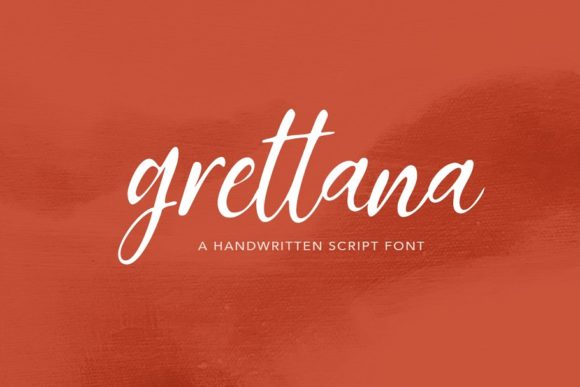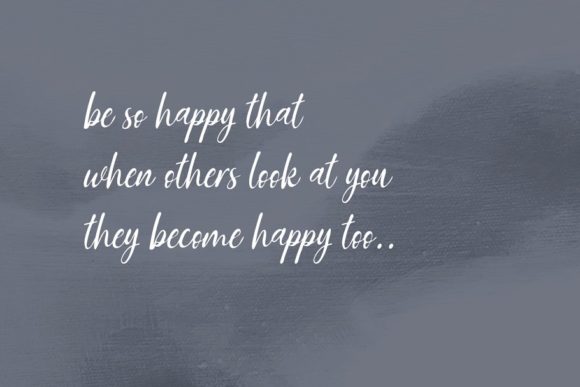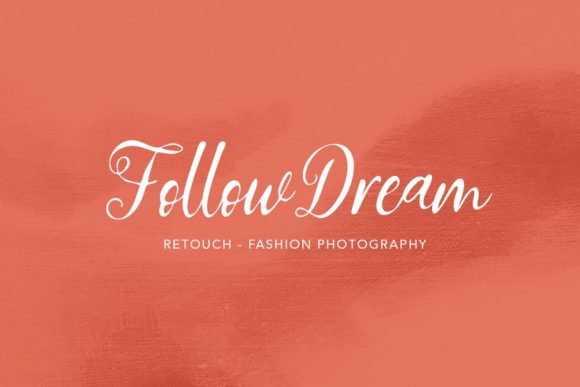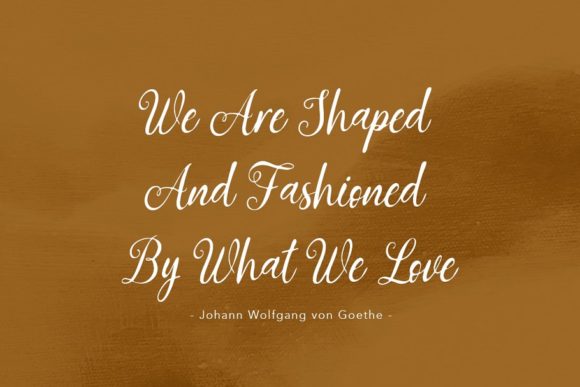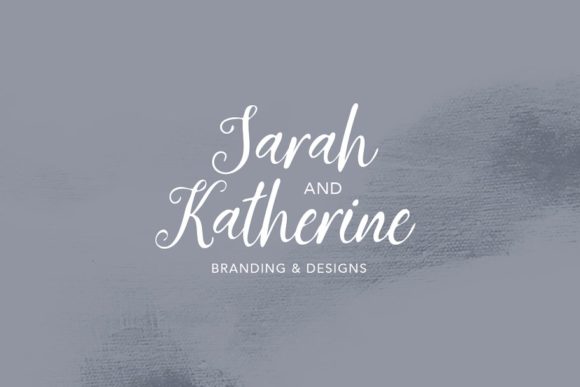
Grettana Script Font
About Grettana Script Font
Grettana is a great script that will add a unique touch to any crafting idea. Fall in love with its contemporary charm!